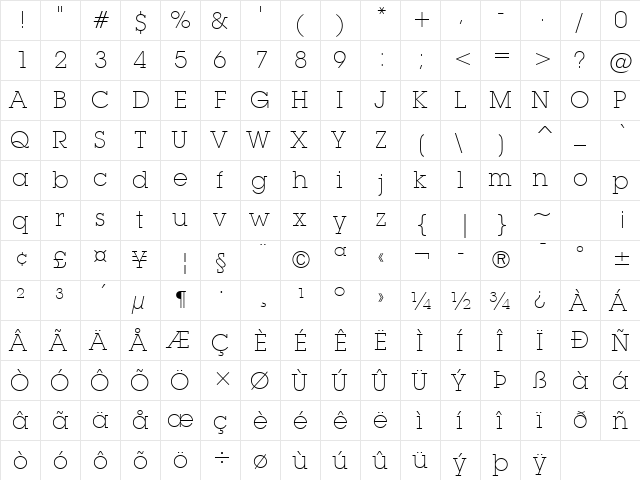
LubalGraph XLt BT Extra Light
Design Context for LubalGraph XLt BT Typeface
LubalGraph XLt BT offers clean, dependable letterforms without strong stylistic allegiance, making it a practical choice for designers who need flexibility. Its slender proportions lend an understated elegance to any composition.
Pro Tip: Use LubalGraph XLt BT in both headline and body roles to test its range before committing to a single application.